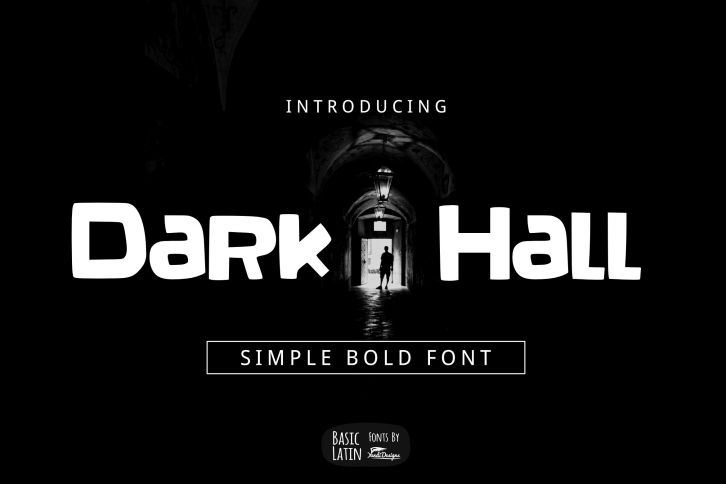
Dark Hall is a gorgeous font that was realeased on August 18, 2020. The font can be used in many style contexts and design environments. Perfect for invitations, magazines, websites, logos, and more! It was designed by YandiDesigns and the file size is 2.97 MB. Thanks for checking out this font!